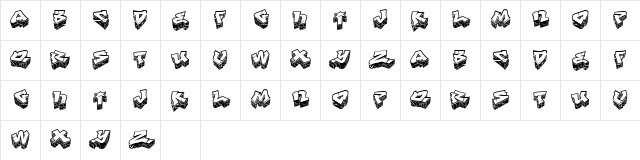
LHF Def Artist Regular Free Font
LHF Def Artist Regular
Foundry: Chuck Davis, Letterhead Fonts
Design Context for LHF Def Artist
LHF Def Artist is a composed and adaptable typeface that performs quietly and consistently across a wide range of design contexts.
Who designed the LHF Def Artist Regular font?
This font was published by Chuck Davis, Letterhead Fonts. Check the technical specs section for copyright and designer details.